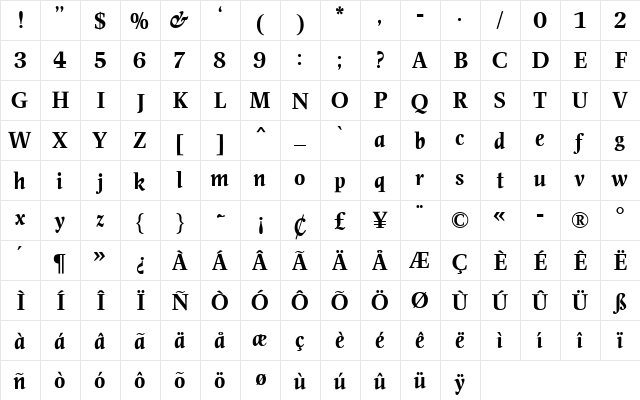
SullyJonquieresMN Bold
Design Context for SullyJonquieresMN Typeface
SullyJonquieresMN offers clean, dependable letterforms without strong stylistic allegiance, making it a practical choice for designers who need flexibility. The heavy weight commands attention and anchors typographic hierarchies.
Pro Tip: Use SullyJonquieresMN in both headline and body roles to test its range before committing to a single application.